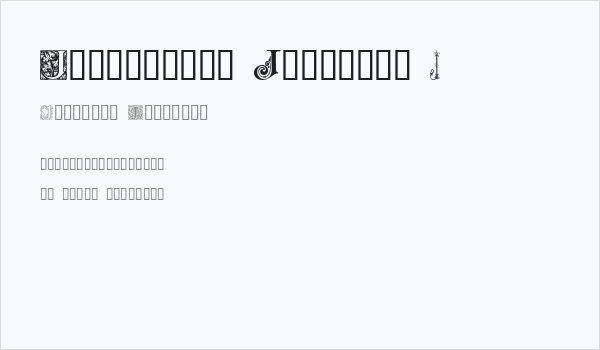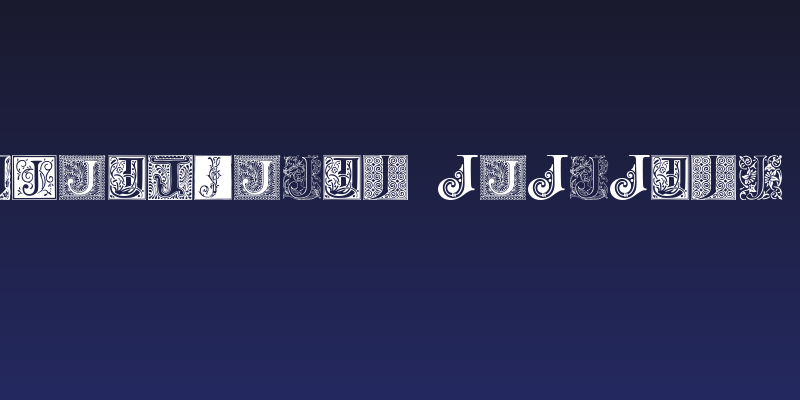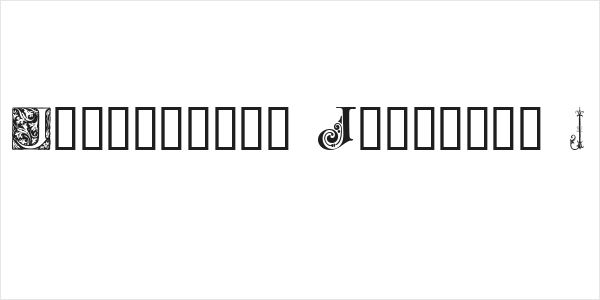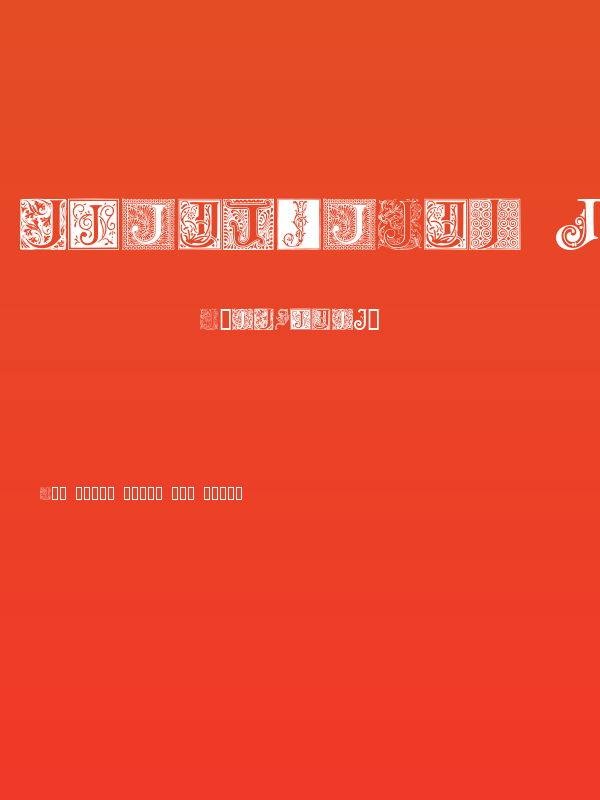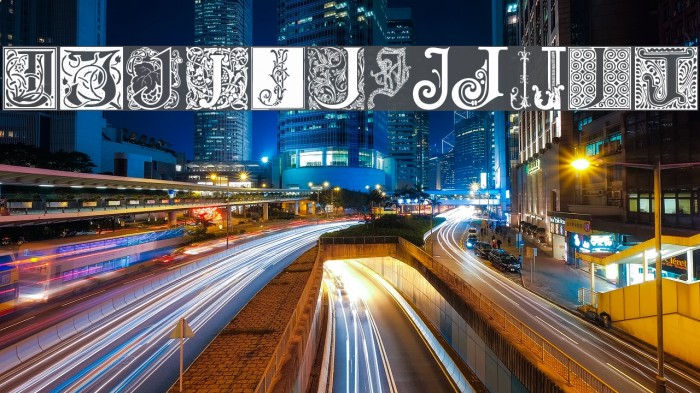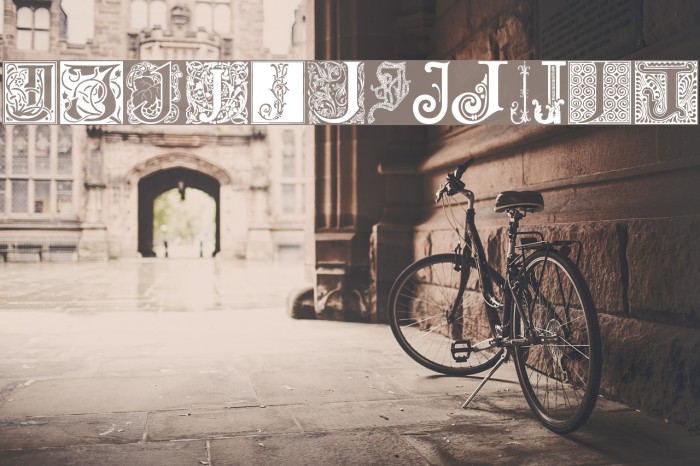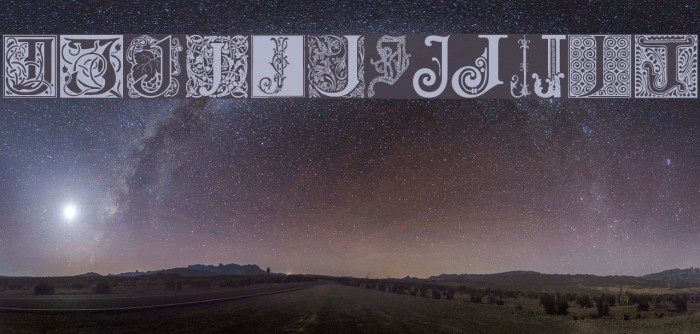
Ornamental Initials J Font
Ornamental Initials J Description
This font features highly decorative and ornamental initials, each letter intricately designed with elaborate patterns and flourishes. The uppercase letters are enclosed in square frames, each filled with unique, artistic motifs that give a sense of historical elegance and grandeur. The style is reminiscent of illuminated manuscripts, where each letter is a work of art in itself. The intricate details and embellishments make it suitable for projects that require a touch of sophistication and classical beauty.
| Overall Style | Vintage |
| Use Case | Logos, Headlines, Decorative purposes |
| Proposed Projects | Ideal for wedding invitations, luxury branding, historical-themed projects, and decorative book covers. |